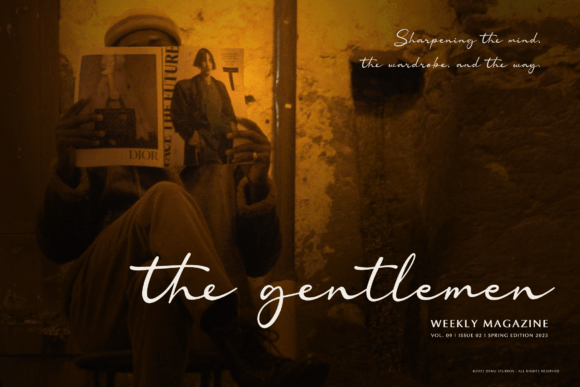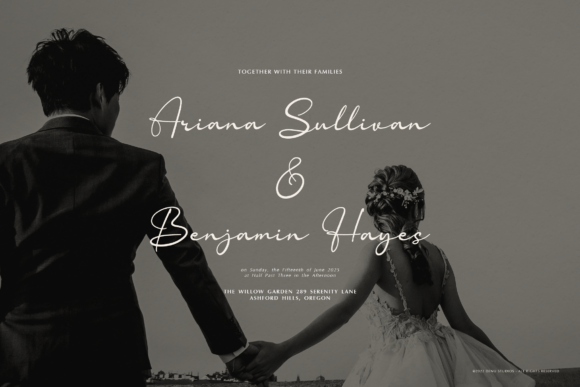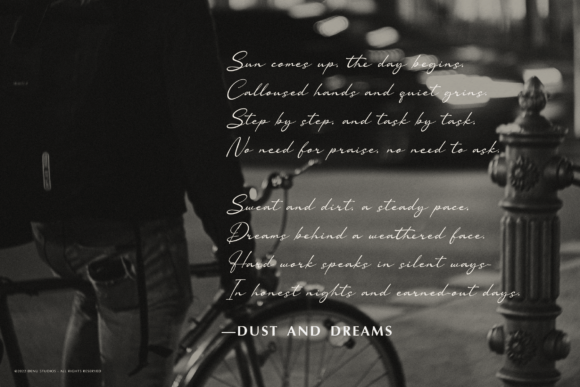
Introduction to Hughorainy Font
Remember that moment when you stumble upon the perfect font for your creative project? It’s like finding a missing piece of a puzzle, and everything just falls into place. For designers, discovering a font that exudes elegance and sophistication can be a game-changer. That’s exactly what the Hughorainy Font offers – a signature-style script that adds a touch of personal charm to any design.
With its sweeping ligatures and natural strokes, the Hughorainy Font is perfect for branding, wedding designs, social media, and any project that requires a handwritten touch with refinement. As a valuable resource for designers, the Hughorainy Font provides high-quality graphics that can be easily customized to fit any design need.
Key Features of Hughorainy Font
- High-quality design resource ideal for creative projects, offering a unique and stylish touch.
- Features a large character set, including uppercase and lowercase letters, numbers, and punctuation marks.
- Unique, handcrafted style that adds a personal touch to any creative project, from branding to typography.
Honest Review: Hughorainy Font
I recently stumbled upon the Hughorainy Font while searching for a unique design resource for a creative project. Initially, I was drawn to its quirky, handwritten style that adds a personal touch to any text.
Here are some aspects where the Hughorainy Font truly shines:
- ✨ High-quality design that’s perfect for creative projects, such as greeting cards, invitations, and social media graphics.
- ⚠️ The font may not be suitable for large blocks of text due to its handwritten nature.
- ⚠️ Some users may find the font’s style too quirky or distracting for certain design projects.
Overall, I’m impressed with the Hughorainy Font and would recommend it for designers looking for a unique, high-quality design resource for their creative projects.